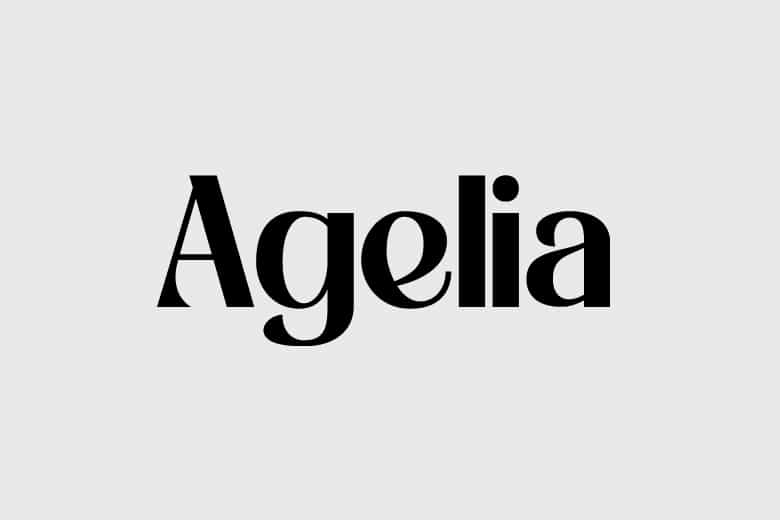
Agelia is a modern serif typeface with two refined styles such as regular and italic. It combines classic typography with a refined look, that is ideal for premium design usage like luxury brand, vintage packaging, editorial designs, wedding invitations, bespoke book covers, and upper class website header. Agelia has graceful lettering and polished aesthetic that adds a unique, sophisticated touch to any type of project.